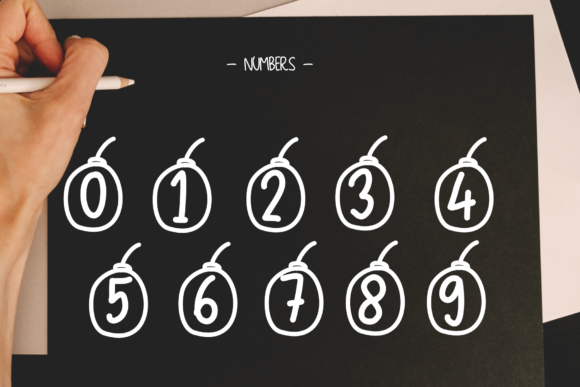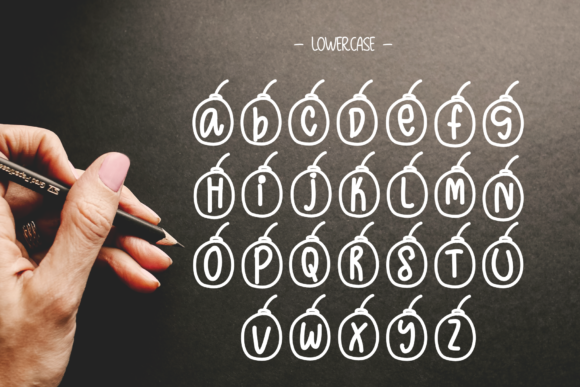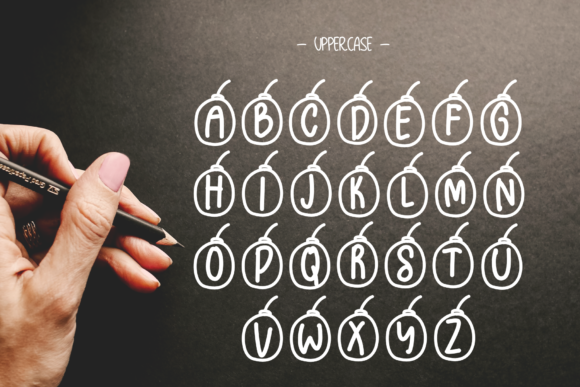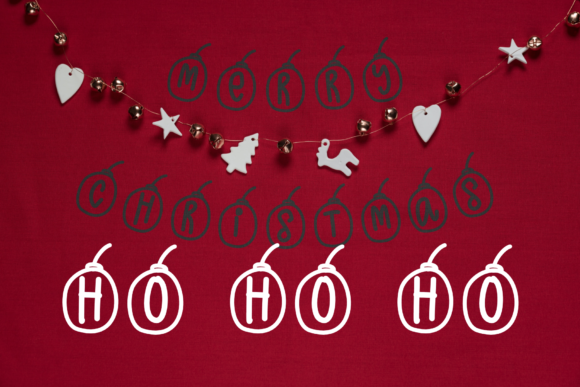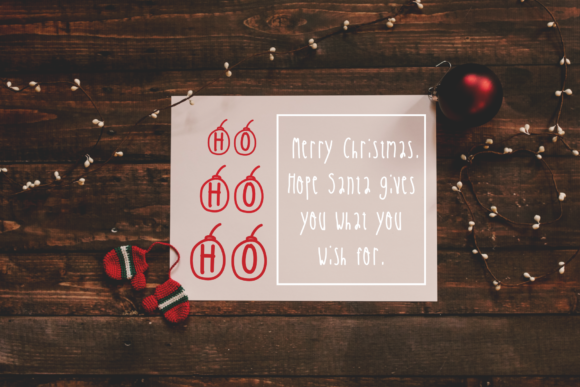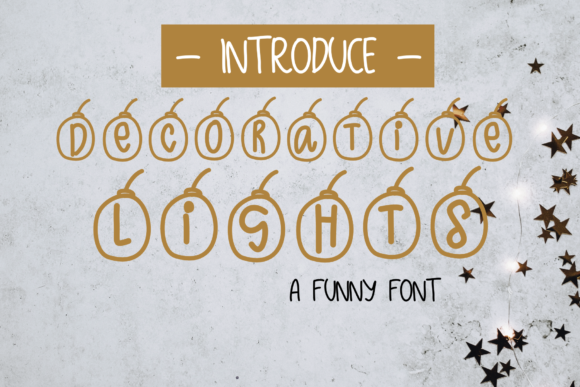
Introducing Decorative-Lights Font: A Festive Display Font for Holiday Projects
Are you looking for a font that adds a touch of magic to your holiday-themed projects? Look no further than Decorative-Lights Font! This beautiful display font is perfect for designers and crafters who want to create eye-catching and festive designs for the holiday season.
What Makes Decorative-Lights Font Special?
Decorative-Lights Font is a unique and creative font that is designed to resemble decorative lights. Its playful and whimsical design makes it perfect for holiday-themed projects such as Christmas cards, invitations, and decorations. The font is highly versatile and can be used for a variety of design projects, from digital graphics to handmade crafts.
Key Features of Decorative-Lights Font
- Unique Design: Decorative-Lights Font features a one-of-a-kind design that is sure to make your holiday projects stand out.
- Highly Versatile: The font can be used for a variety of design projects, from digital graphics to handmade crafts.
- Scalable: The font is highly scalable, making it perfect for use on a variety of materials, from small decorations to large signs.
Uses for Decorative-Lights Font
Decorative-Lights Font is perfect for a variety of holiday-themed projects, including:
- Christmas Cards and Invitations: Add a touch of festive fun to your holiday cards and invitations with Decorative-Lights Font.
- Holiday Decorations: Use Decorative-Lights Font to create eye-catching holiday decorations, such as garlands, banners, and signs.
- Digital Graphics: Use Decorative-Lights Font to create festive digital graphics, such as social media posts and holiday-themed graphics.
- Handmade Crafts: Add a touch of personality to your handmade crafts, such as ornaments, gift tags, and holiday-themed DIY projects.
Tips for Using Decorative-Lights Font
Here are a few tips for using Decorative-Lights Font:
- Experiment with Colors: Decorative-Lights Font looks great in a variety of colors, so don’t be afraid to experiment and find the perfect color for your project.
- Mix and Match Fonts: Combine Decorative-Lights Font with other fonts to create a unique and eye-catching design.
- Use it Sparingly: Because Decorative-Lights Font is a display font, it’s best to use it sparingly to make a big impact.
Decorative-Lights Font is a great display font that is perfect for holiday-themed projects. Its unique design, versatility, and ease of use make it a must-have for designers and crafters. Whether you’re creating Christmas cards, holiday decorations, or digital graphics, Decorative-Lights Font is sure to add a touch of festive fun to your projects.